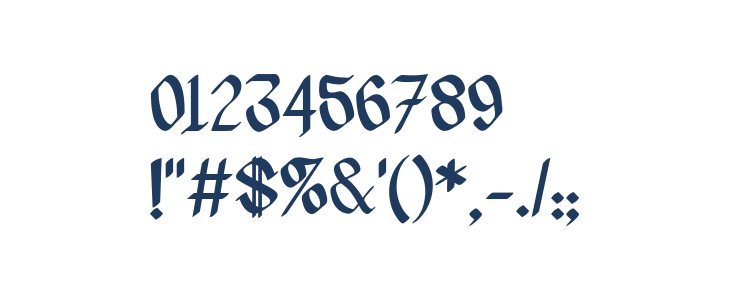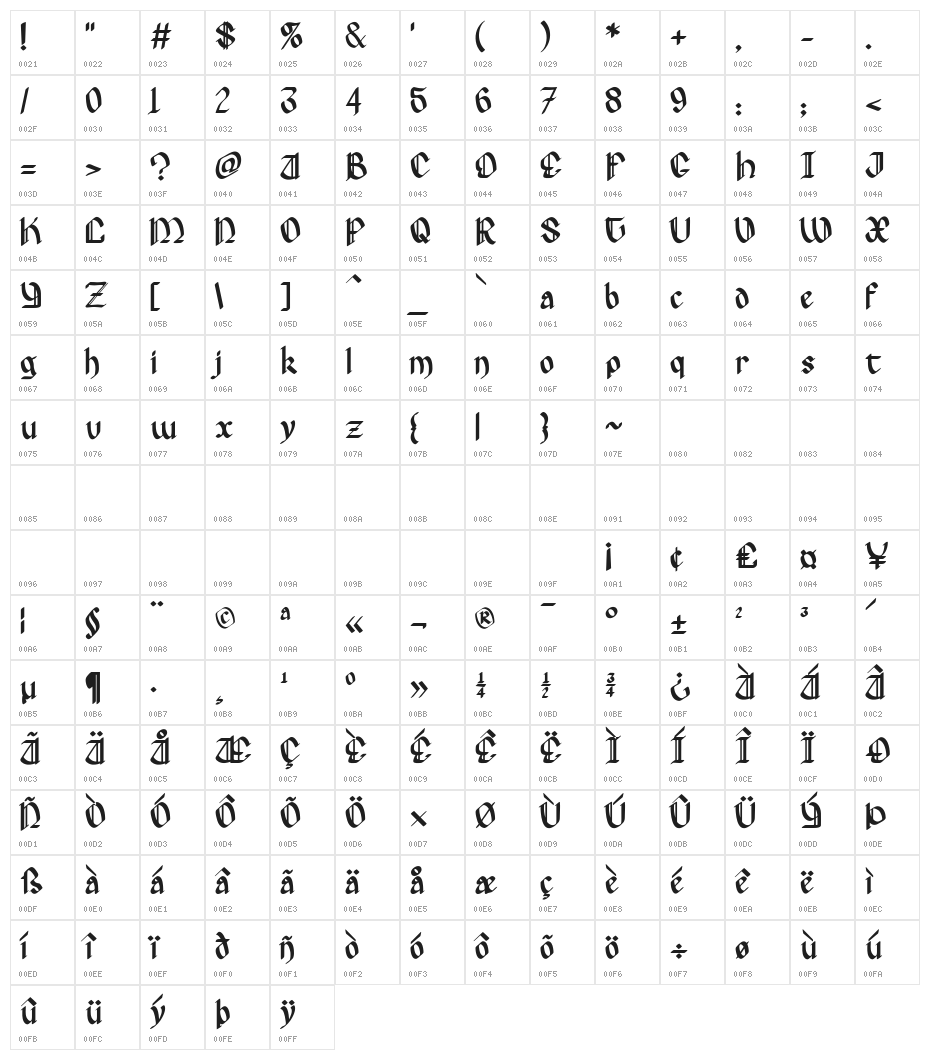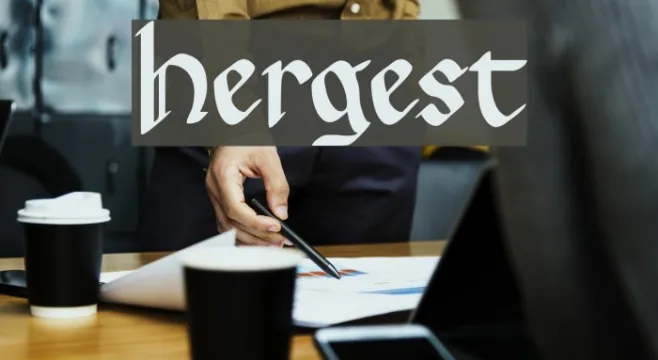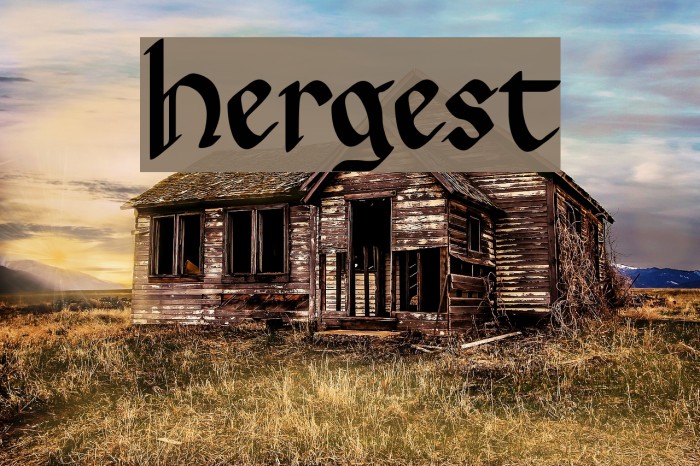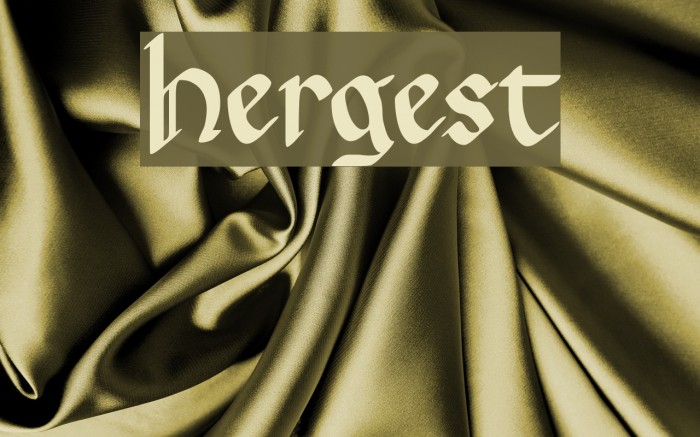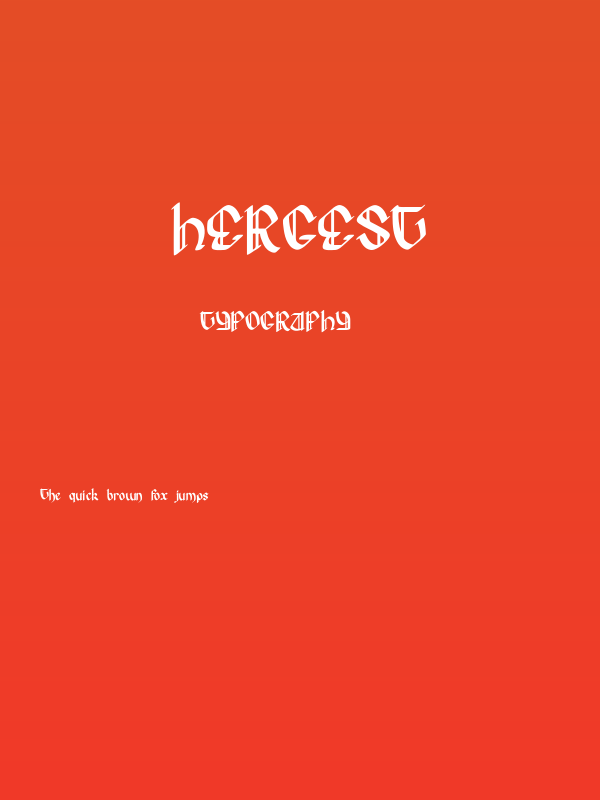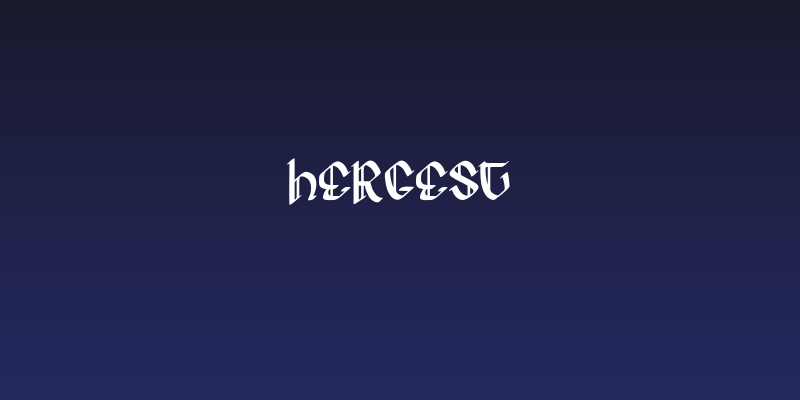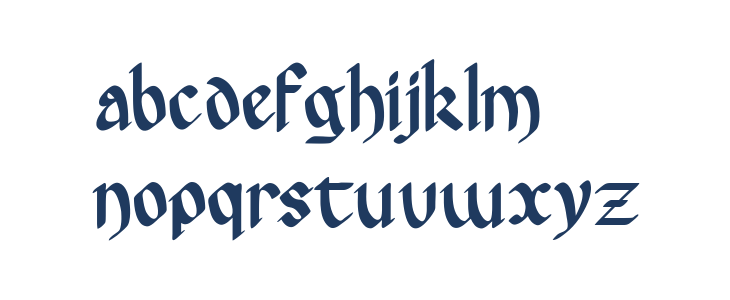
Hergest Font
Hergest Description
This font is a striking example of Blackletter style, characterized by its dramatic, angular strokes and intricate detailing. The uppercase letters exhibit a strong, bold presence with sharp edges and a medieval aesthetic, while the lowercase letters maintain a similar style with slightly softer curves. The numerals are consistent with the overall theme, featuring bold lines and a distinctive, historic flair. Special characters are designed with the same attention to detail, ensuring a cohesive look across all glyphs. This font is perfect for projects that require a touch of historical elegance and a bold statement.
| Use Case | Headlines, Logos, Decorative text |
| Proposed Projects | Ideal for historical-themed designs, book covers, posters, and branding that requires a classic and bold statement. |